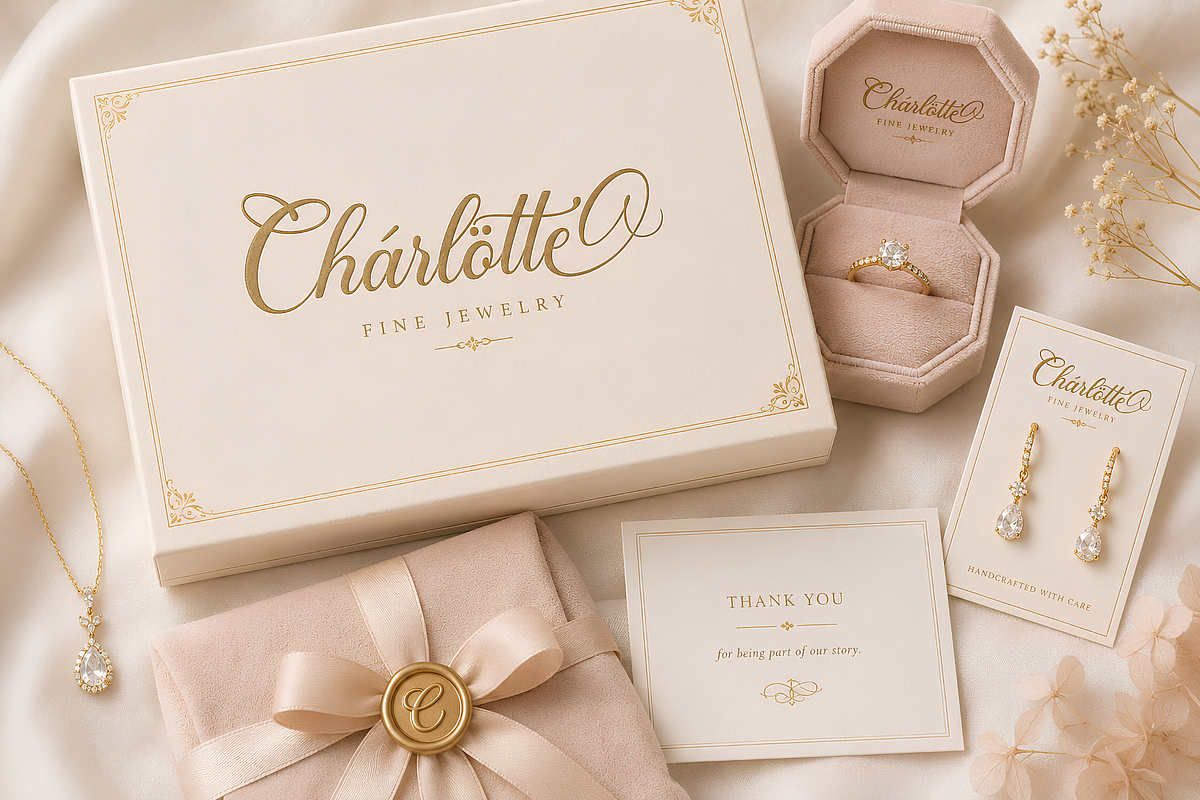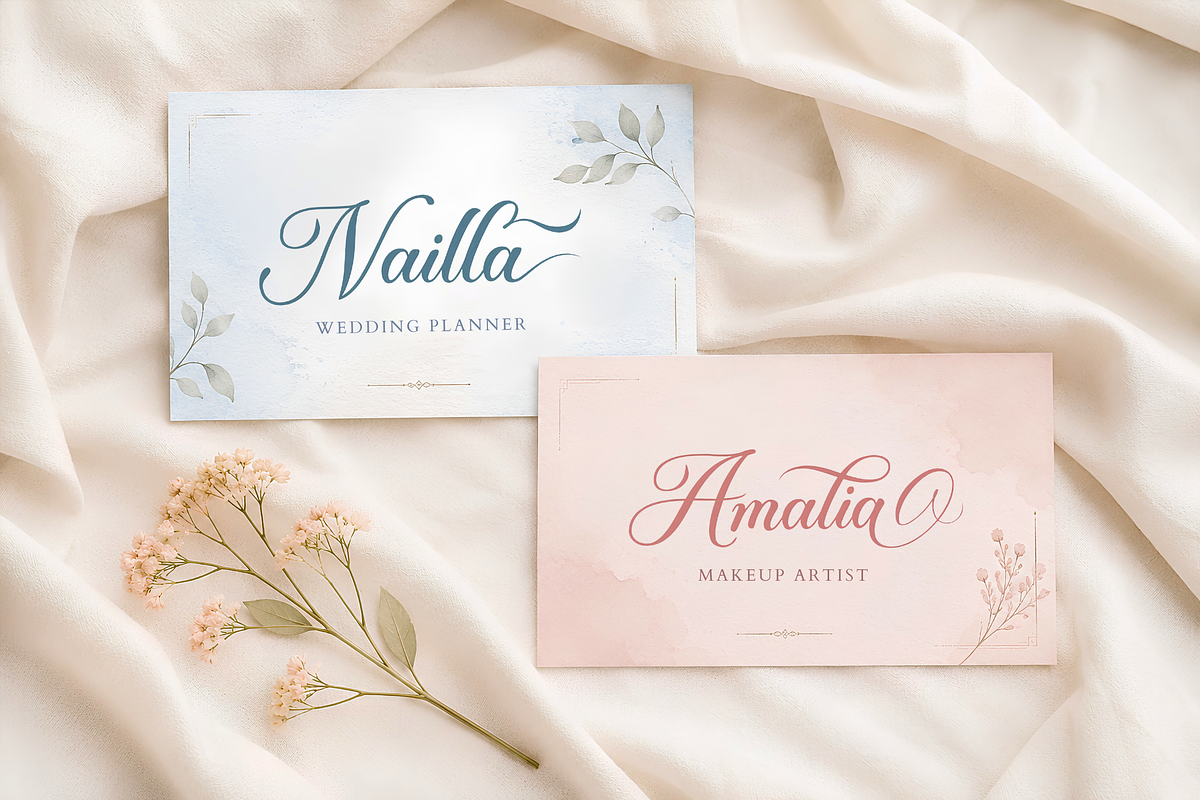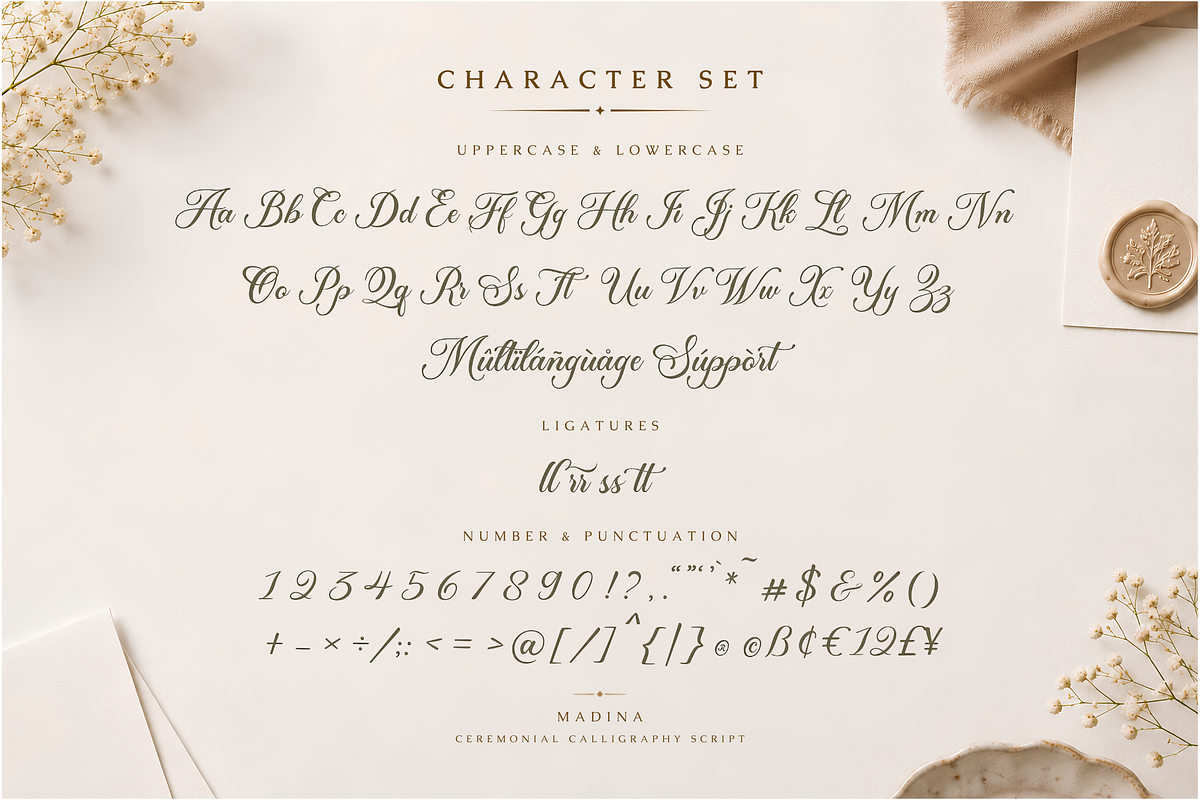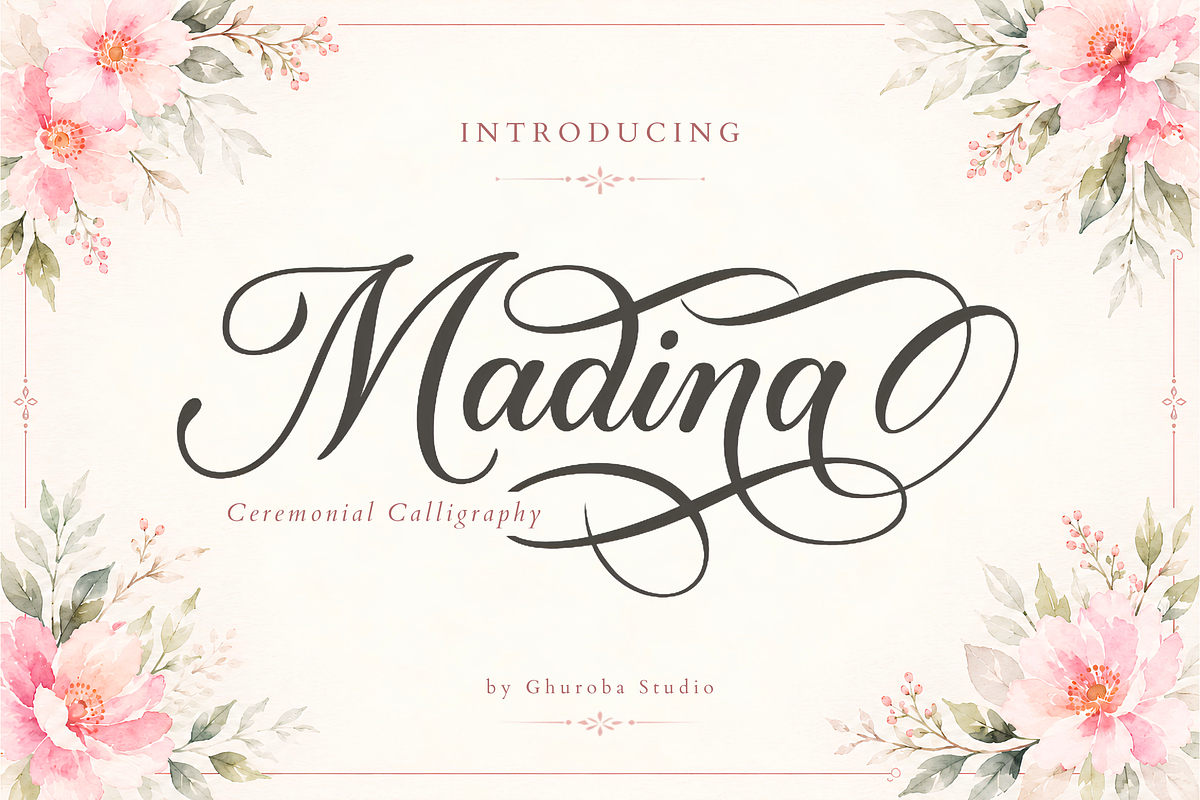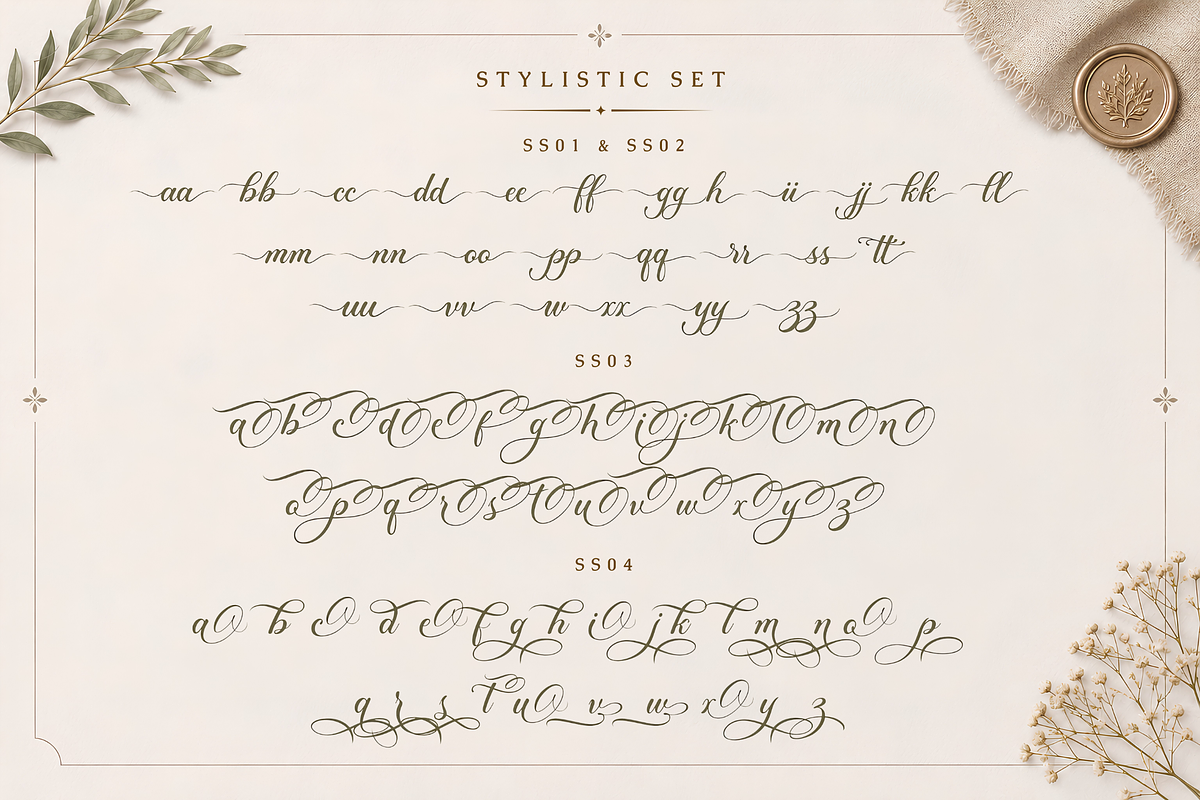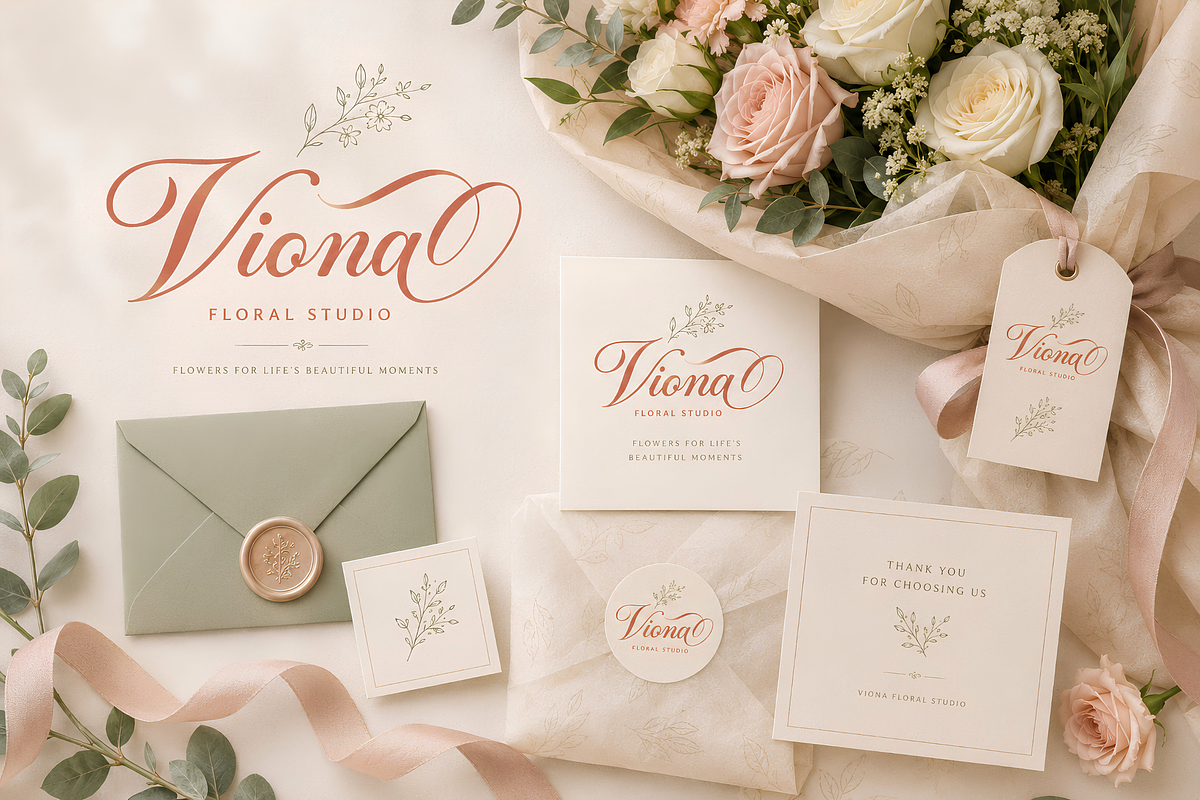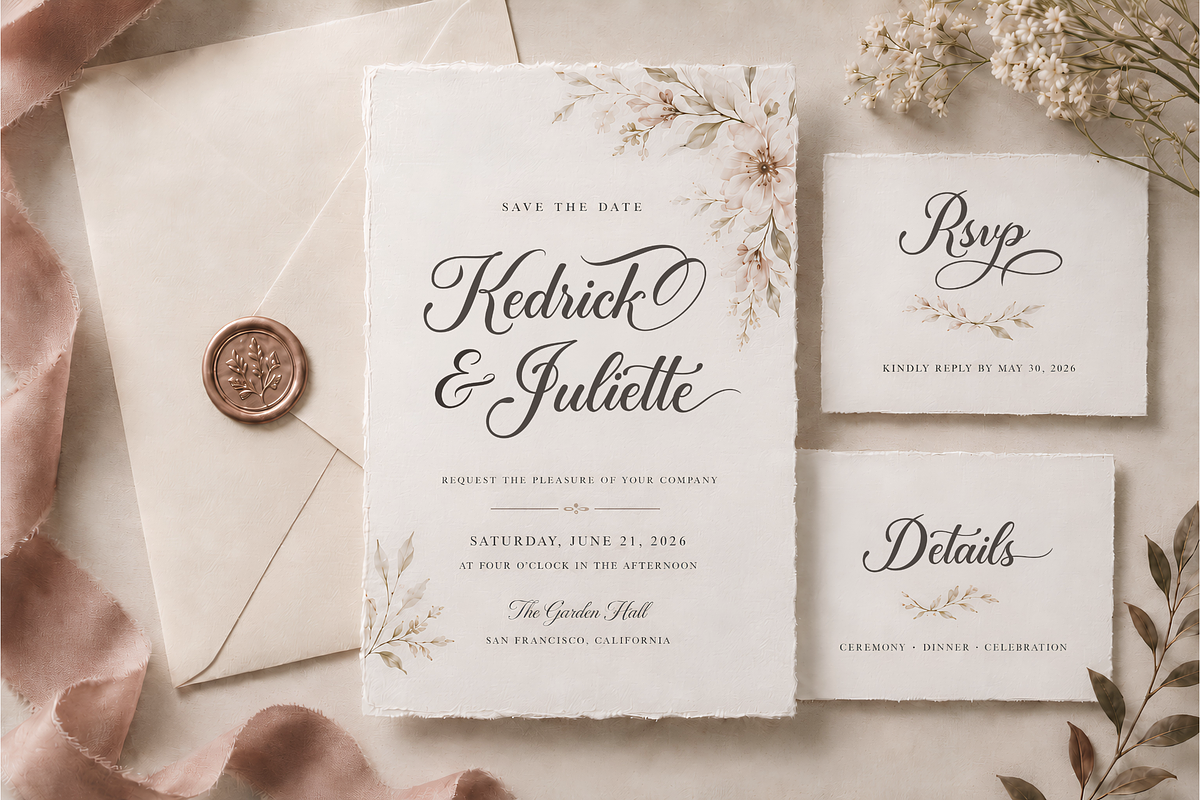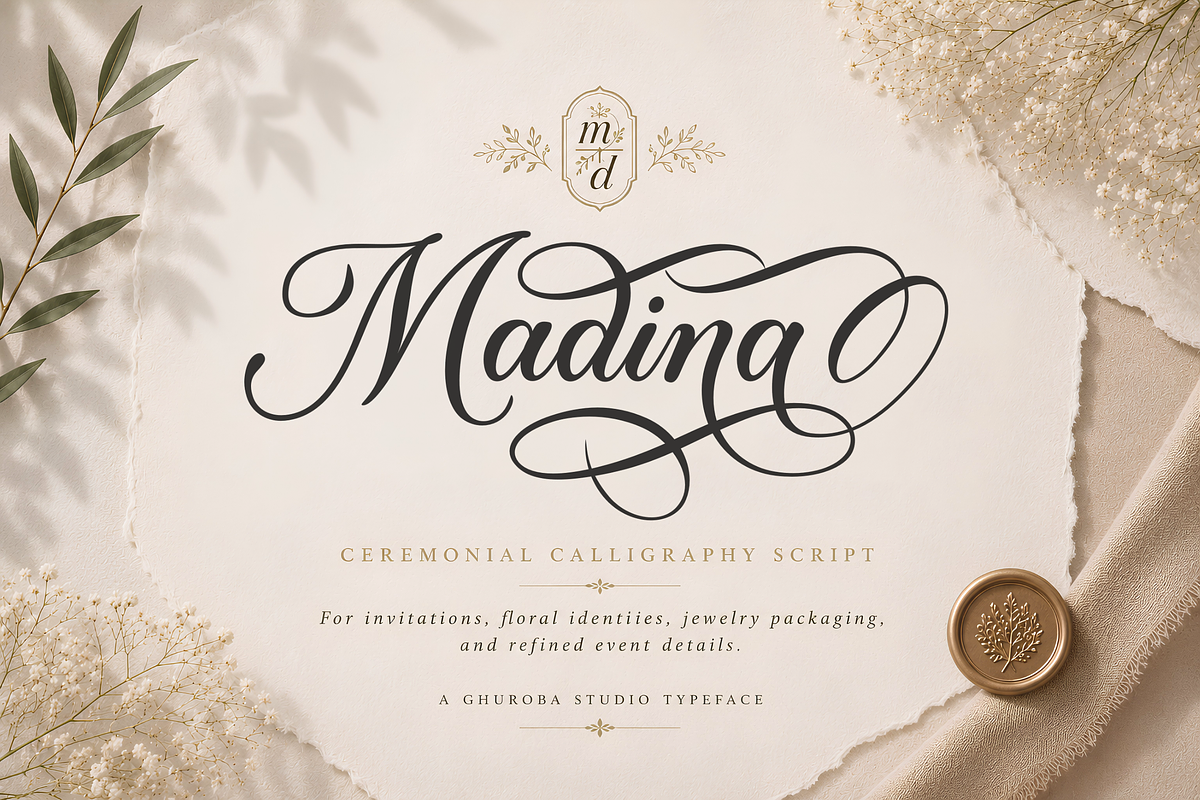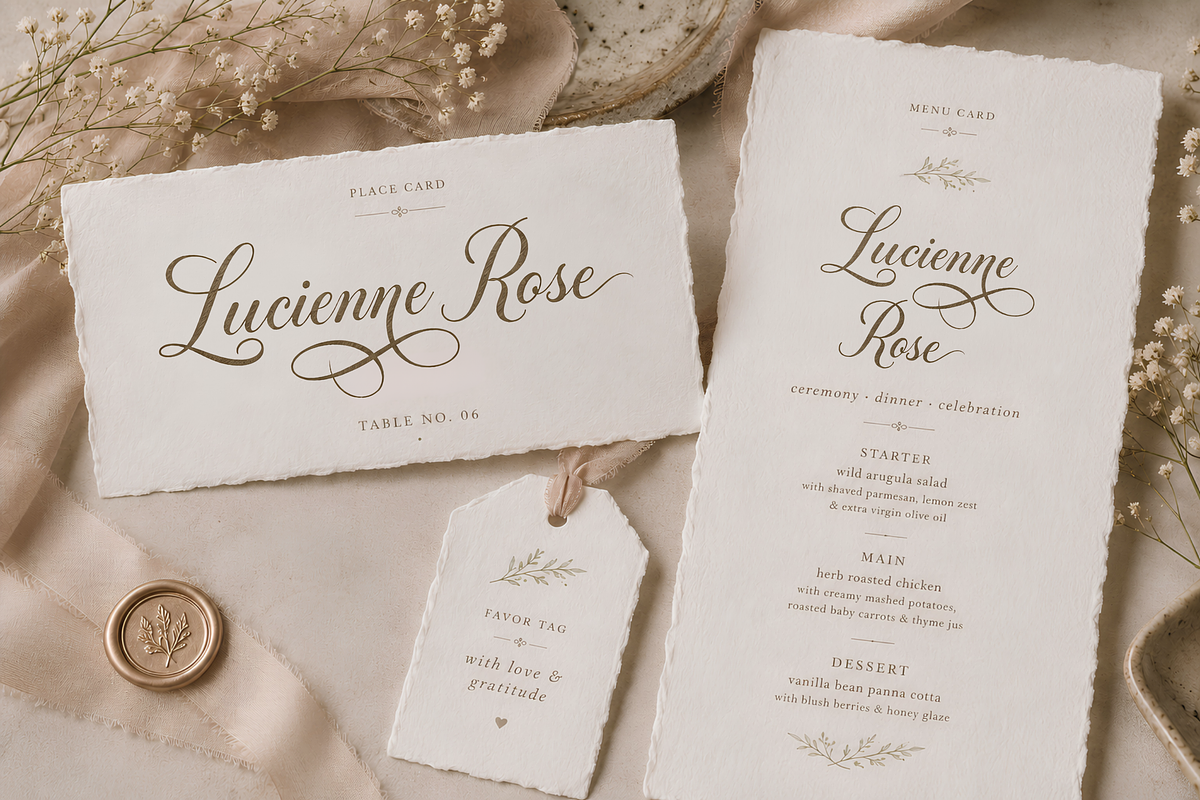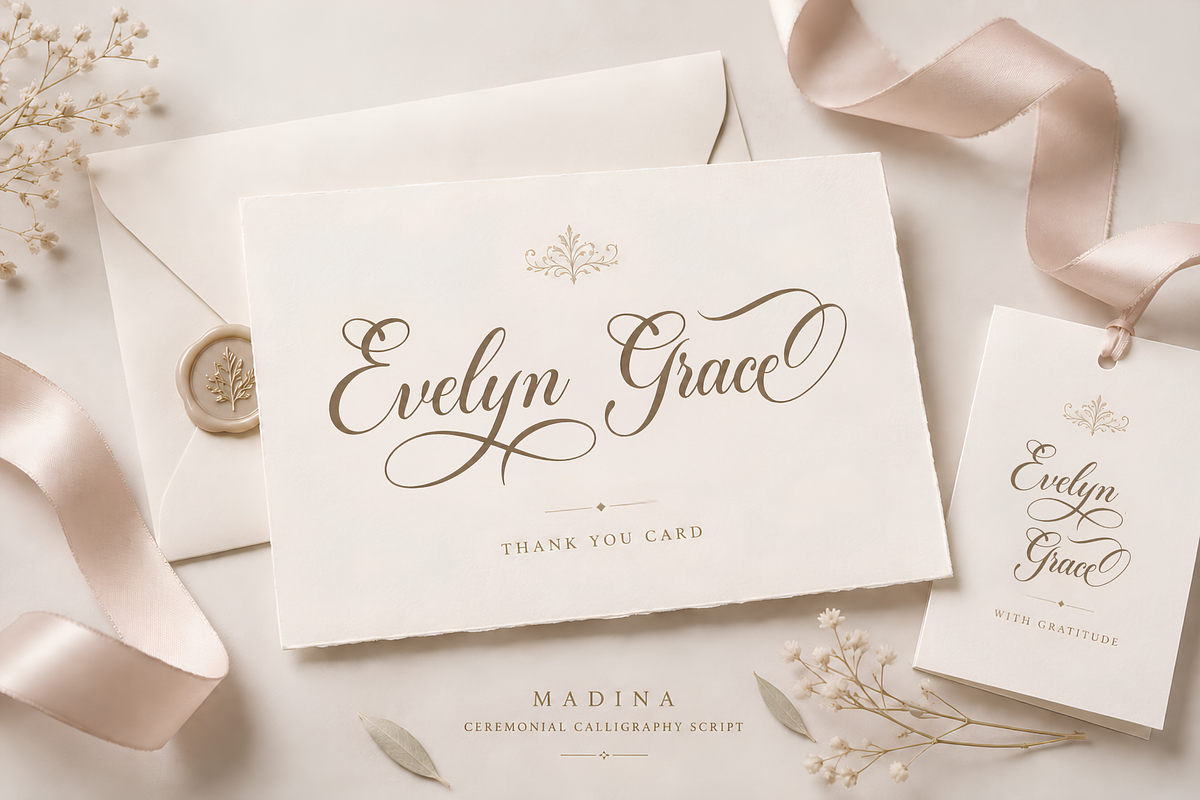
Madina Modern Calligraphy Script
Madina is a ceremonial modern calligraphy script font for wedding invitations, florist identities, jewelry packaging, boutique notes, and refined event branding.
Built with graceful swashes, decorative alternates, and a romantic calligraphy rhythm, Madina works beautifully for wedding invitation suites, bridal stationery, place cards, thank you cards, florist logos, jewelry cards, boutique packaging, and monogram-style marks.
This font is designed for projects that need a refined ceremonial voice, from intimate wedding details to boutique brand presentations and elegant product packaging.
Features Included:
Uppercase & lowercase
Ligatures & Stylistic Sets 1, 2, 3 & 4
Regular and Slant styles
Wedding invitations
Bridal stationery
Florist logos
Jewelry packaging
Thank you cards
Place cards and menu cards
Boutique branding
Monogram-style marks
Event visuals
Elegant logo design
Madina gives designers a graceful calligraphy system for building romantic, ceremonial, and refined brand worlds.